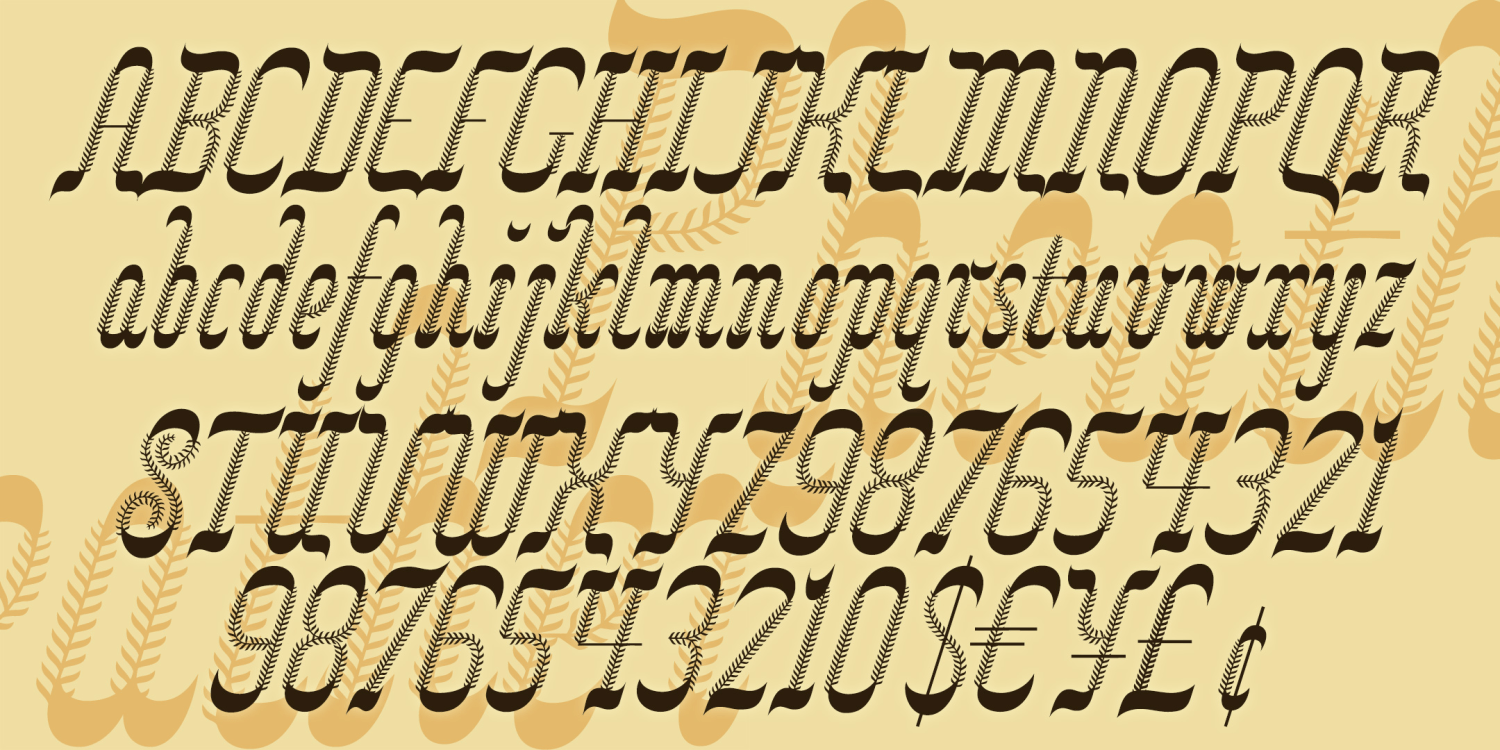
About Pheather
Pheather is a fun font that suggests graceful feathers or plant fronds. Energetically inclined, Pheather elegantly balances frilly strokes with solid end caps. Pheather was inspired by en example of 19th-century calligraphy. In making this available for…